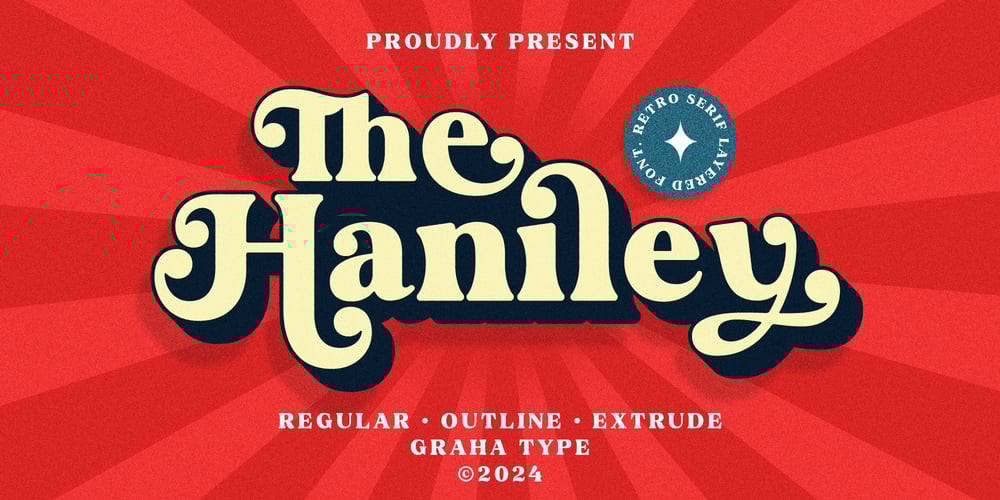
The Haniley Retro Serif Font Family was designed by Toni Nugraha and published by Graha Type. The Haniley Retro Serif contains 3 styles and family package options. The Haniley Retro Serif is a serif font with retro feel. It’s perfect for logotype, poster, branding and merchandise. This font adds a touch of uniqueness to your designs, making it great for creating standout design. Whether you’re working on a brand or a special project, The Haniley brings an elegant and timeless look to your work.Whats Included :Regular, Outline & ExtrudeStandard Glyphs Alternates and LigaturesPUA Encoded CharactersMultilingual Support